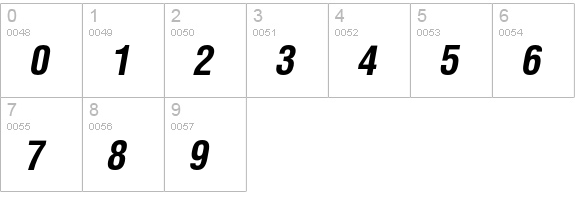
AGLettericaCondensed BoldOblique Font Details
AGLettericaCondensed BoldOblique is a visually striking and bold font that exudes modernity and sophistication. Its condensed design commands attention while maintaining a sense of elegance and professionalism. The slanted, oblique style adds a dynamic and energetic touch to any text or design project. This font is perfect for creating eye-catching headlines, posters, logos, and more. The combination of its bold weight and condensed form makes it ideal for projects that require a strong visual impact. Best of all, AGLettericaCondensed BoldOblique is available for free download at FontsMarket.com. Whether you're a designer looking to add a bold statement to your work or a business owner in need of a powerful font for branding, this font is a versatile and impactful choice. Download it today and elevate your designs with the bold and dynamic style of AGLettericaCondensed BoldOblique.